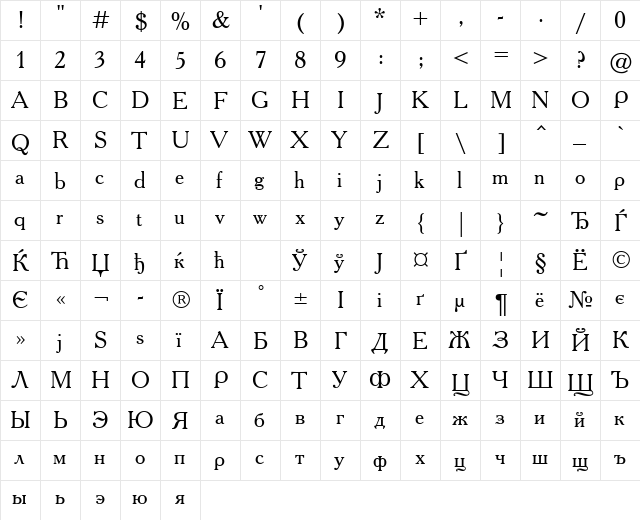
AcademyACTT Regular Font Preview
AcademyACTT Regular
AcademyACTT Regular Font Details
Design Context for AcademyACTT Typeface
AcademyACTT is a composed and adaptable typeface that performs quietly and consistently across a wide range of design contexts.